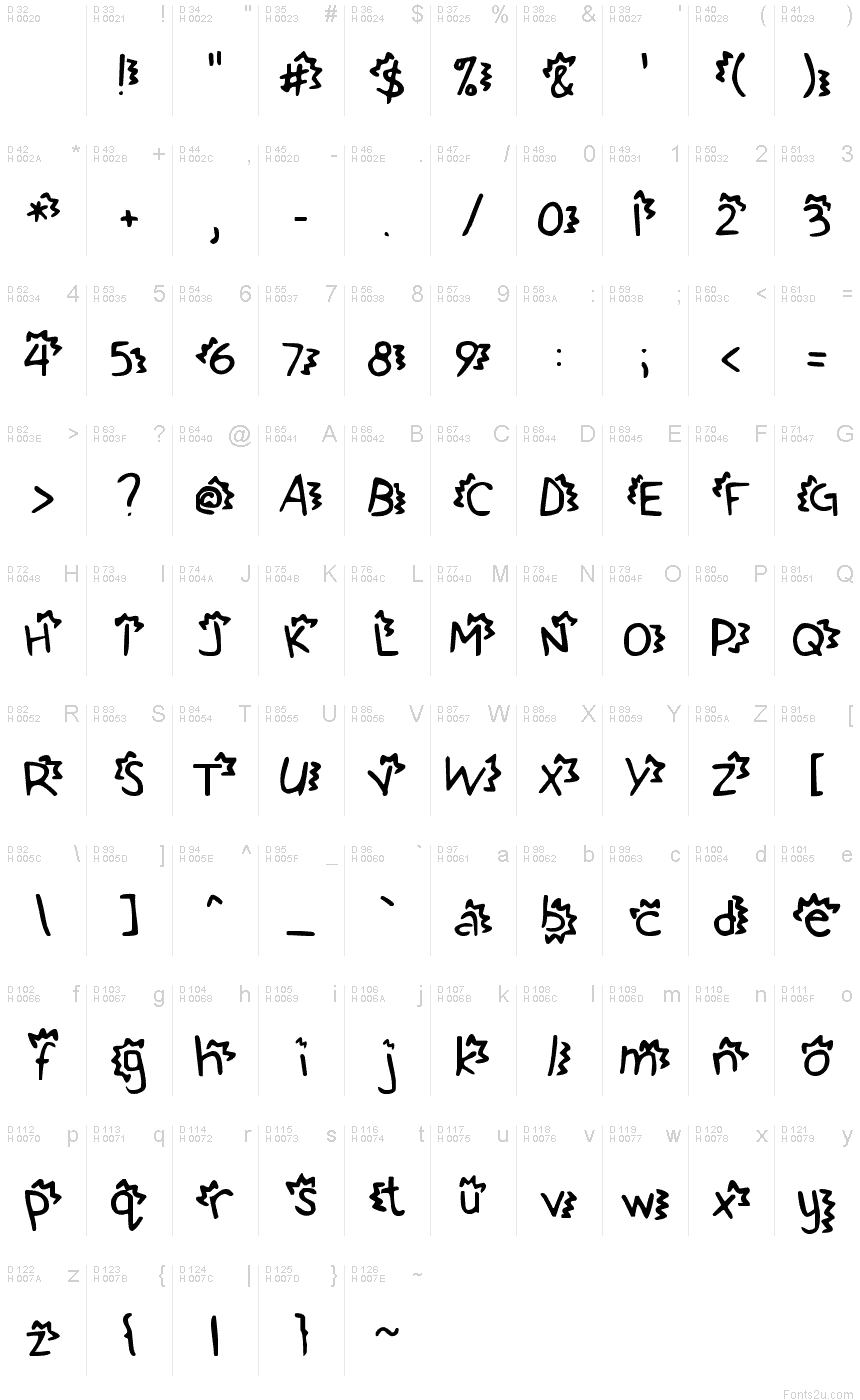
Betty's Confetti
Betty's Confetti font by StimulEye Fonts is a free decorative display typeface that looks like it’s been cut from paper streamers and tossed in the air. Each letter wobbles and twists with a hand-drawn energy, with chunky black strokes and quirky spikes that feel like little bursts of confetti. The result is noisy in the best way—playful, slightly chaotic, and full of motion that instantly signals “fun is happening here.”
Using Betty's Confetti, this free font shines on birthday invitations, kids’ party posters, carnival flyers, school event graphics, playful logos, greeting cards, and bold social media announcements. Its busy texture loves big sizes where every jittery curve can be seen clearly. For balance, pair it with a simple rounded sans serif for body text and let Betty’s Confetti handle the loud, celebratory headlines.